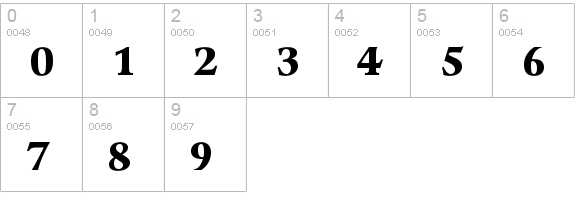
Guardi 95 Black is a maximum-weight, dramatic variant in the Guardi typeface family \xE2\x80\x94 well suited to maximum-impact headlines, posters, and packaging.
Guardi 95 Black font is a bold and striking typeface that exudes elegance and sophistication. With its thick, clean lines and sharp edges, this font is perfect for making a bold statement in any design project. The contrast between the thick strokes and delicate details creates a unique and eye-catching look that is sure to capture attention. And the best part? Guardi 95 Black font is available for free download at FontsMarket.com. Whether you're working on a branding project, poster design, or website layout, this versatile font will add a touch of modern flair to your work. Download Guardi 95 Black font today and elevate your designs with its timeless appeal.